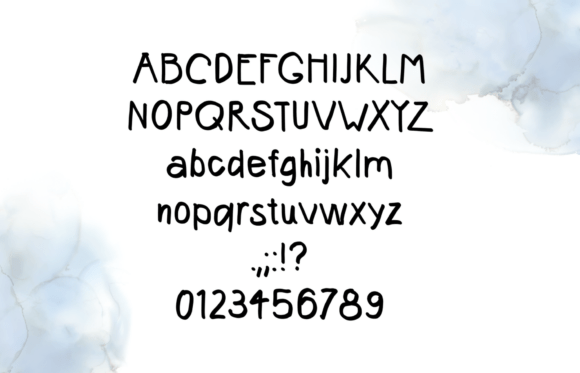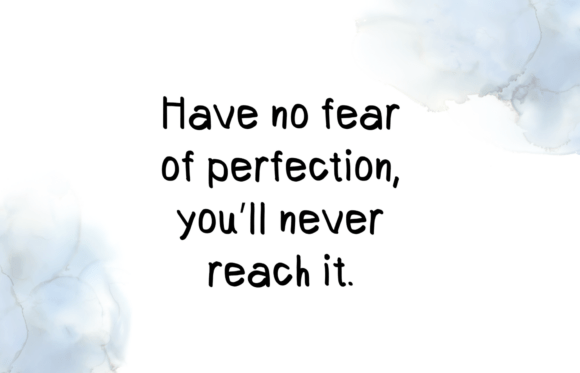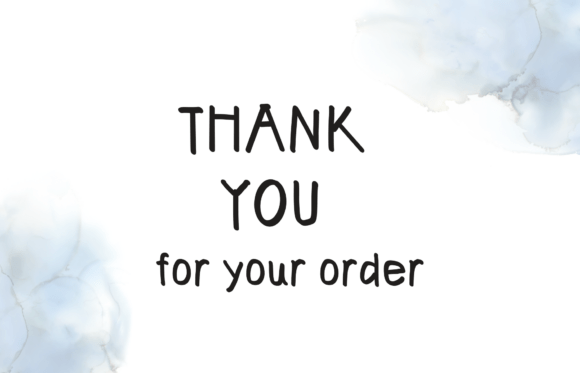
The Perfect Blend of Sophistication and Approachability
Have you ever found yourself pouring your heart and soul into a creative project, only to be stuck on the perfect font to bring your vision to life? It’s a frustrating feeling, but one that’s easily resolved with the Exclusive Font.
This elegant typeface is designed to evoke a sense of professionalism while still feeling approachable and human. With its clean, rounded letterforms and consistent rhythm, the Exclusive Font is an “all-rounder” that can handle everything from long-form body text to standout headlines.
For designers, the Exclusive Font is a valuable addition to any toolkit. Its balanced spacing and clear legibility make it perfect for a wide range of applications, from corporate branding to modern educational materials and lifestyle stationery. Whether you’re building a brand for a consultancy or a local floral shop, the Exclusive Font provides an “exclusive” level of sophistication that’s sure to impress.
Exclusive Font Key Features
- Unique characteristic: Handcrafted, custom-designed glyphs and ligatures for a distinctive aesthetic.
- Font styles: Includes 8 styles, ranging from Thin to Black, offering versatility for various design applications.
Exclusive Font Review
As a designer, I’m always on the lookout for unique and high-quality fonts to elevate my designs. Exclusive Font is one such font that caught my attention, and I decided to give it a try.
- Unique and elegant design: Exclusive Font has a distinct style that sets it apart from other fonts. Its clean lines, smooth curves, and subtle flourishes make it perfect for luxury and high-end branding.
- High-quality typography: The font is well-designed and well-crafted, with excellent legibility and clarity even at smaller font sizes.
- Good for titles and headings: Exclusive Font shines when used for titles and headings, adding a touch of sophistication and elegance to any design.
- Limited font weights: Exclusive Font comes in a limited range of font weights, which may not be suitable for designs that require a wide range of font weights.
- Not suitable for body text: While Exclusive Font is great for titles and headings, it may not be the best choice for body text due to its limited legibility at smaller font sizes.
Overall, Exclusive Font is a solid choice for designers who want to add a touch of luxury and sophistication to their designs. However, it may not be the best choice for designs that require a wide range of font weights or body text.
Tips for Getting the Most Out of Exclusive Font
Use Exclusive Font to create visually appealing headings and titles.
Experiment with different font sizes and styles to achieve the desired look.
Combine Exclusive Font with other design elements to create a cohesive visual identity.
Exclusive Font is ideal for:
Creating luxury branding materials
Designing high-end marketing materials
Adding a touch of sophistication to digital content
Alternatives to Exclusive Font for Designers
Montserrat is a sans-serif font designed by Julieta Ulanovsky. It’s a great alternative to Exclusive Font for body text and headings. Montserrat is a modern, urban font that works well in digital and print media.
Comparison: Montserrat is more versatile and widely used compared to Exclusive Font, which is more niche. Montserrat is a better choice for projects that require a clean and modern look.
Lato is a sans-serif font designed by Łukasz Dziedzic. It’s a great alternative to Exclusive Font for body text and headings. Lato is a clean, elegant font that works well in digital and print media.